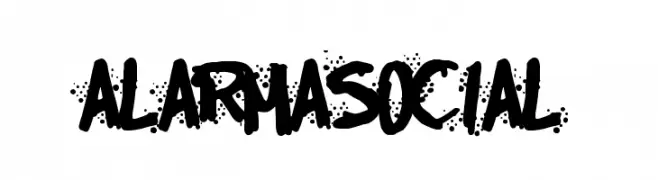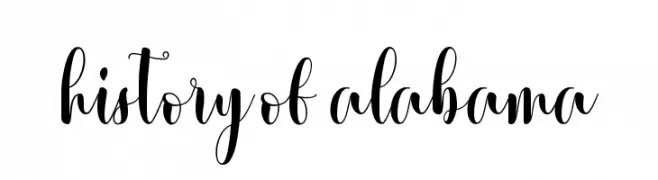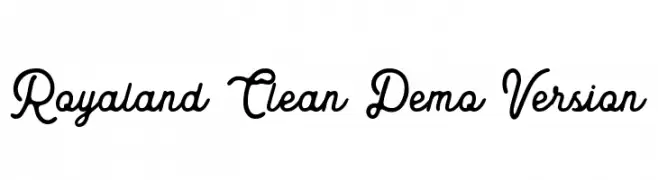
( Typefar - Farul Arjianto - fontbundles.net/typefar )
A playful, hand-drawn font with tall, narrow characters and an organic feel.
( William Jeovah de Medeiros - www.william.com.br )
A bold, rugged font with thick strokes and a hand-crafted appearance.
( Woodcutter - woodcutter Manero - www.woodcutter.es )
A bold, graffiti-inspired font with a textured, hand-painted look.
( Ydhra Studio - creativemarket.com/ydhra )
A flowing, cursive font with elegant loops and swirls.
( Zansari - Zaffar Ansari - www.zansarifont.com )
A charming and elegant handwritten cursive font with fluid letterforms.
( Zulfikar Ali - fontbundles.net/afredo-fk )
A bold, cursive font with a playful and energetic style.
( alifirman - Ali Firman - www.creativefabrica.com/designer/meutuwah/ref/20027/ )
An elegant, flowing script font with decorative flourishes.
( balazs95 )
A futuristic and geometric font with clean lines and circular elements.
( matafanaku - Jajat Rohmana - matafanaku.blogspot.com/ )
A thin, elegant sans-serif font with a modern, minimalistic style.